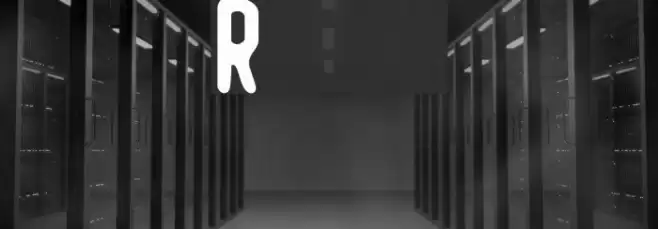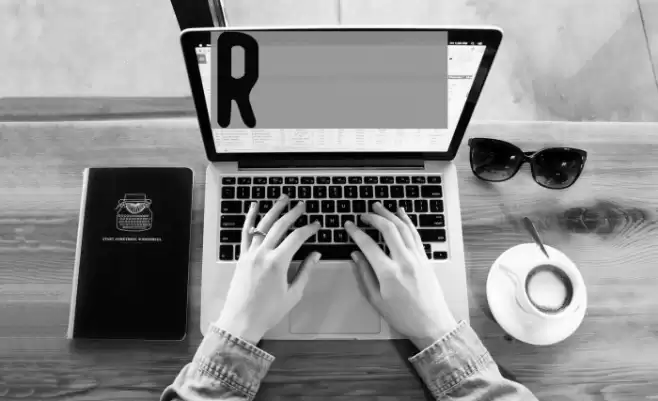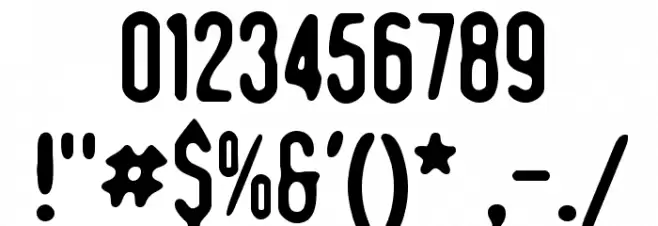
Romantico Font
Romantico Description
This font features a playful and bold design with rounded edges and a slightly condensed appearance. The characters are uniformly thick, giving it a strong presence while maintaining a friendly and approachable look. The uppercase and lowercase letters are well-balanced, with a consistent stroke width that adds to its cohesive style. The numerals and special characters follow the same design principles, ensuring versatility across various applications. Its unique style makes it suitable for projects that require a touch of whimsy and creativity.
A playful, bold font with rounded edges and a slightly condensed style from Distorted Eroded fonts.
- Proposed Projects: Ideal for children's books, playful branding, posters, and creative packaging.
- Overall Style: Playful